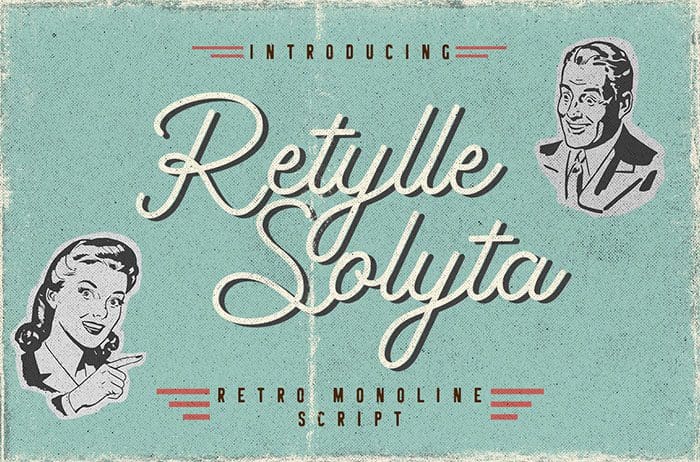
Retylle Solyta Script Font
Retylle Solyta is a beautiful monoline retro script font that would work for a wide variety of purposes and projects. Perfect for branding projects, logos, and more. Thanks to Creatype Studio for sharing this font! Take a look at this portfolio for more of his stunning fonts.